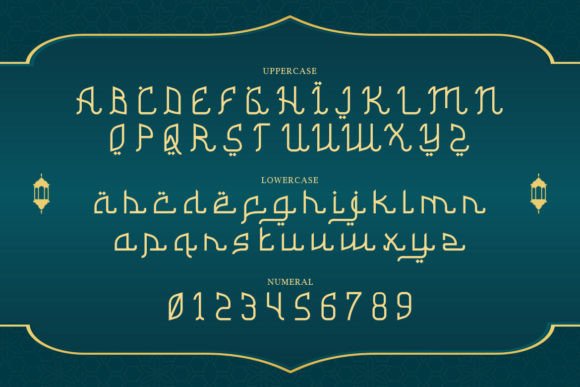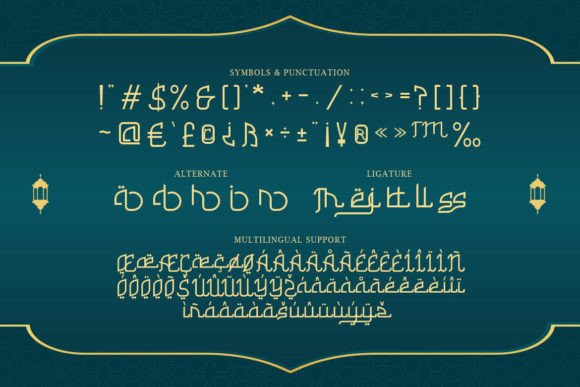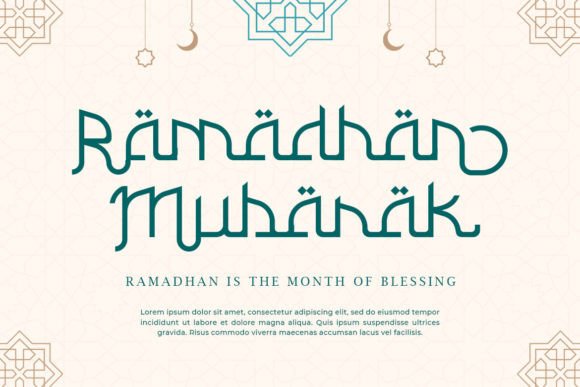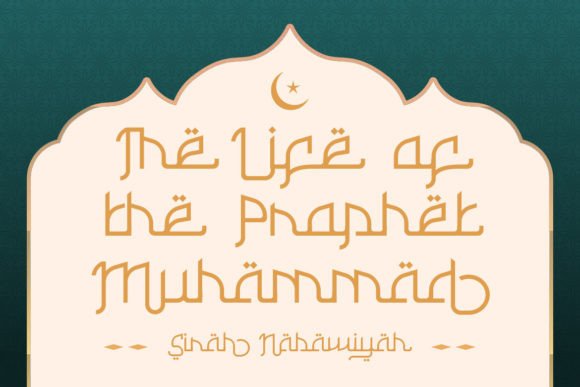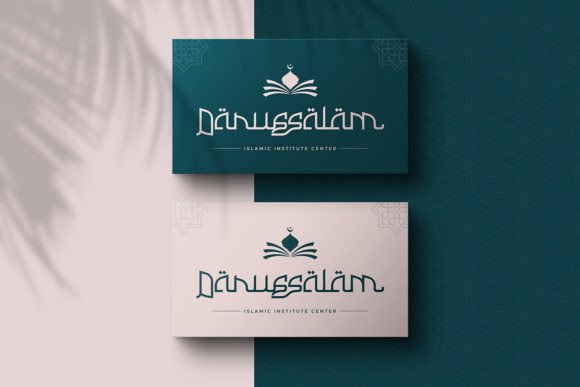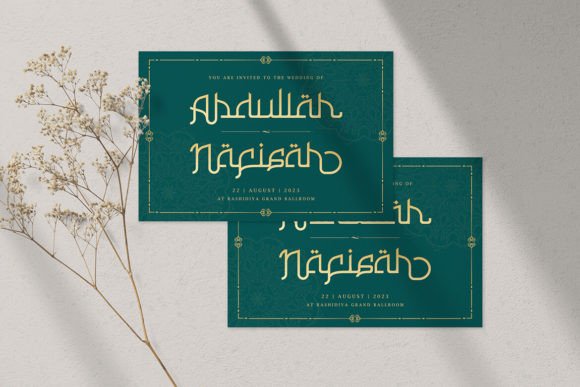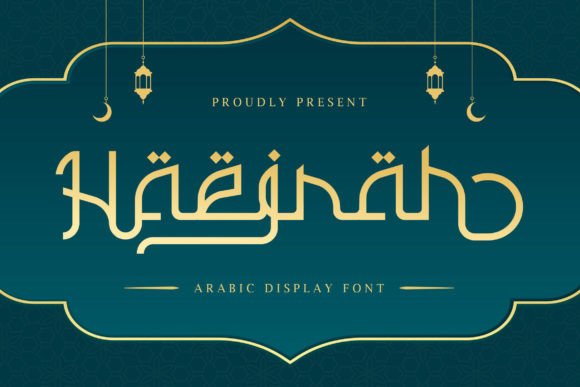
Introducing Haejrah Font: A Masterful Blend of Tradition and Modernity
In the realm of typography, few fonts manage to capture the essence of a language’s rich cultural heritage while also exuding modern sophistication. Haejrah Font, an Arabic display font, achieves this delicate balance with remarkable finesse. Designed to seamlessly blend tradition with modernity, Haejrah offers a captivating typographic solution for designers and crafters looking to infuse their projects with the elegance and authenticity of Arabic script.
The Beauty of Arabic Calligraphy
Arabic calligraphy is an art form that has been revered for centuries, celebrated for its intricate beauty and expressive qualities. The script’s fluid strokes and ornate flourishes convey a sense of grandeur and sophistication, making it a sought-after element in various design projects. Haejrah Font takes inspiration from this rich tradition, incorporating elegant calligraphic strokes and intricate details that pay homage to the art of Arabic calligraphy.
A Font for Diverse Design Applications
Haejrah Font is a versatile typographic solution suitable for a wide range of design applications. Whether you’re working on posters, book covers, branding materials, or digital artworks, this font adds a touch of sophistication and cultural authenticity to your projects. Its unique blend of traditional and modern elements ensures that your designs stand out with a distinctive flair, setting them apart from more generic typographic choices.
Elegance and Versatility
One of the defining characteristics of Haejrah Font is its elegant and versatile style. The font’s intricate flourishes and calligraphic strokes are meticulously crafted to capture the essence of Arabic calligraphy, lending a sense of grace and allure to any design. This versatility makes Haejrah an excellent choice for designers seeking to create visually striking and culturally resonant projects that engage and inspire their audience.
Celebrating Cultural Authenticity
In an era where cultural authenticity is increasingly valued, Haejrah Font offers designers a unique opportunity to incorporate the richness and heritage of Arabic script into their work. By choosing Haejrah, designers can ensure that their projects not only look stunning but also pay tribute to the cultural traditions that underpin the font’s design. This thoughtful approach to typography enables designers to create works that are both aesthetically pleasing and culturally sensitive.
Enhancing Your Designs with Haejrah
Haejrah Font is more than just a typographic choice; it’s a design statement that can elevate your projects to new heights. By incorporating Haejrah into your designs, you can:
- Add a touch of sophistication and elegance
- Infuse your projects with cultural authenticity and heritage
- Create visually striking and engaging designs
- Pay homage to the rich tradition of Arabic calligraphy
Haejrah Font represents a masterful blend of tradition and modernity, offering designers a captivating typographic solution that celebrates the beauty and richness of Arabic script. With its elegant calligraphic strokes, intricate details, and versatile style, Haejrah is poised to become a go-to font for designers and crafters seeking to create stunning and culturally resonant projects. Step into the world of Arabic typography with Haejrah and let your designs shine with its mesmerizing beauty and cultural resonance.
Key Features of Haejrah Font
- Elegant calligraphic strokes and intricate details
- Versatile style suitable for various design applications
- Cultural authenticity and heritage
- Sophisticated and modern aesthetic
- Supports Arabic script